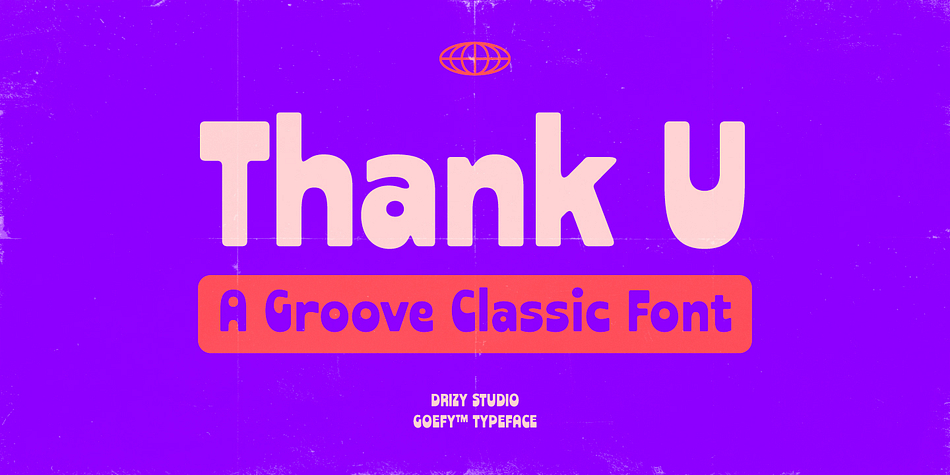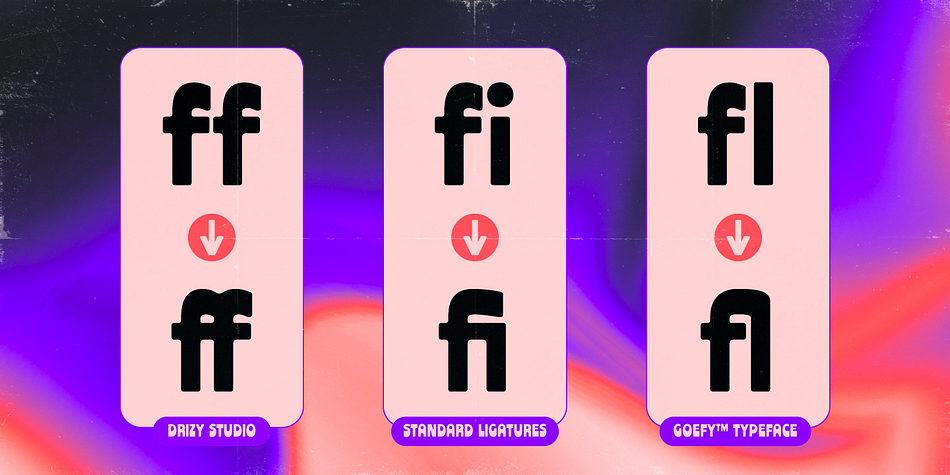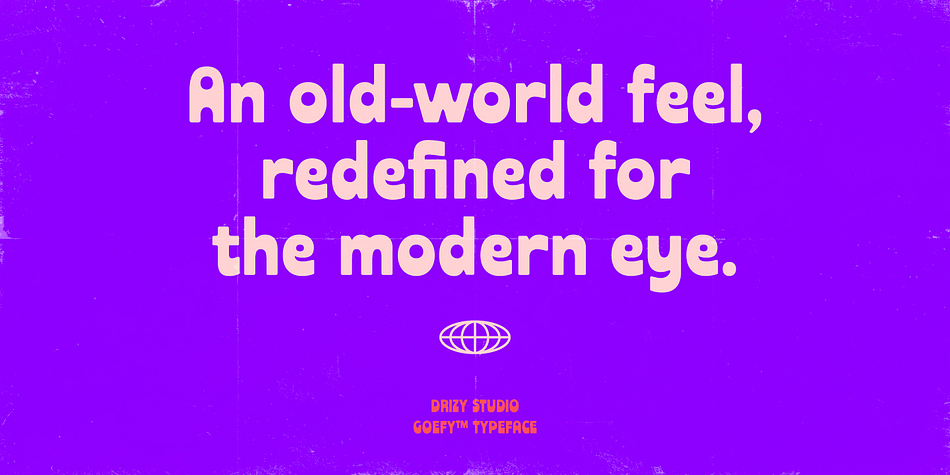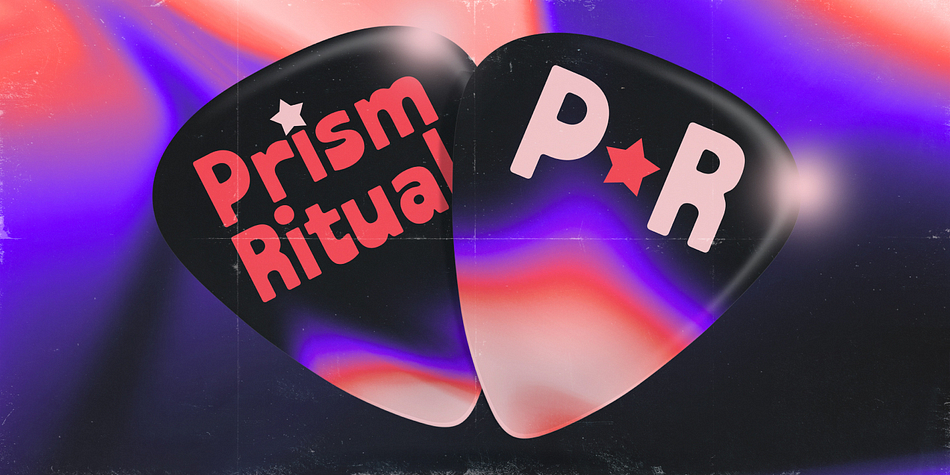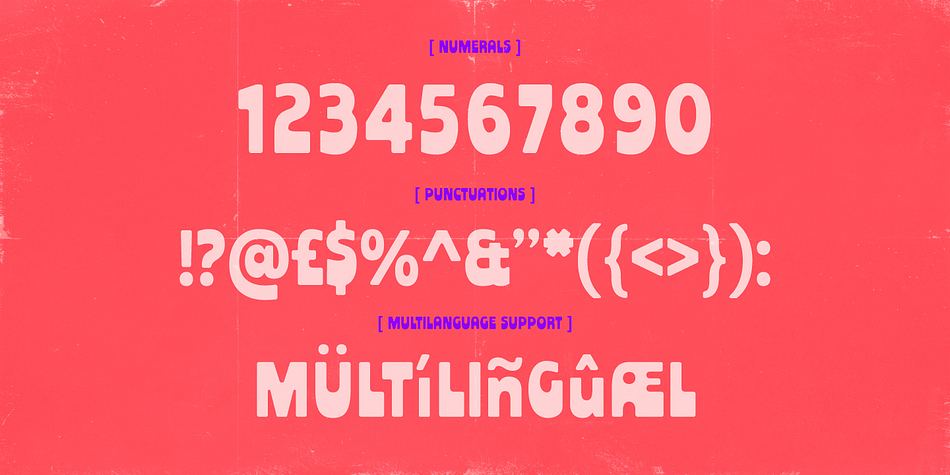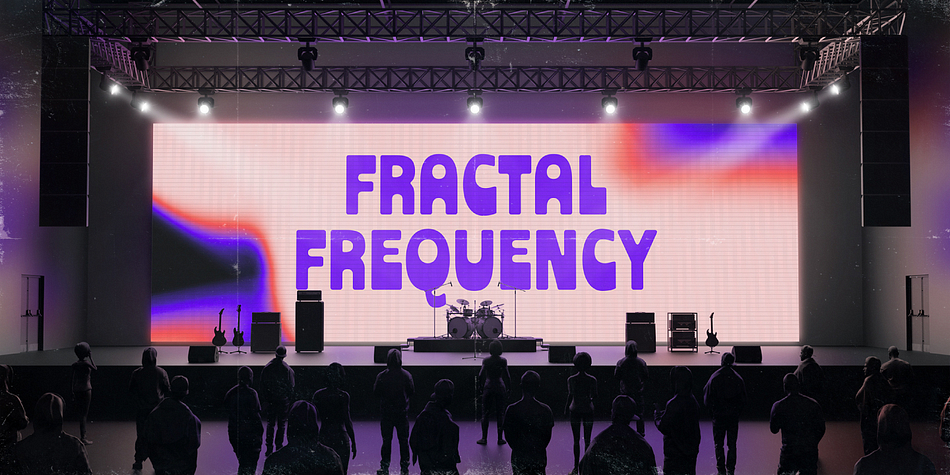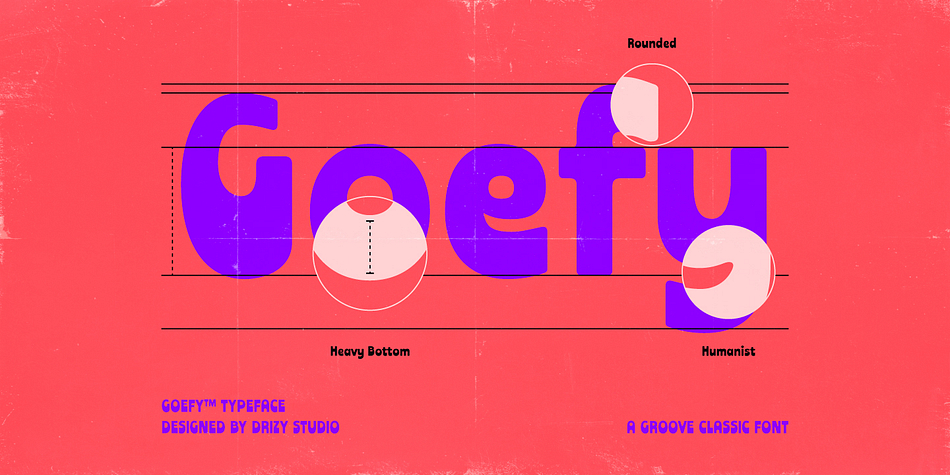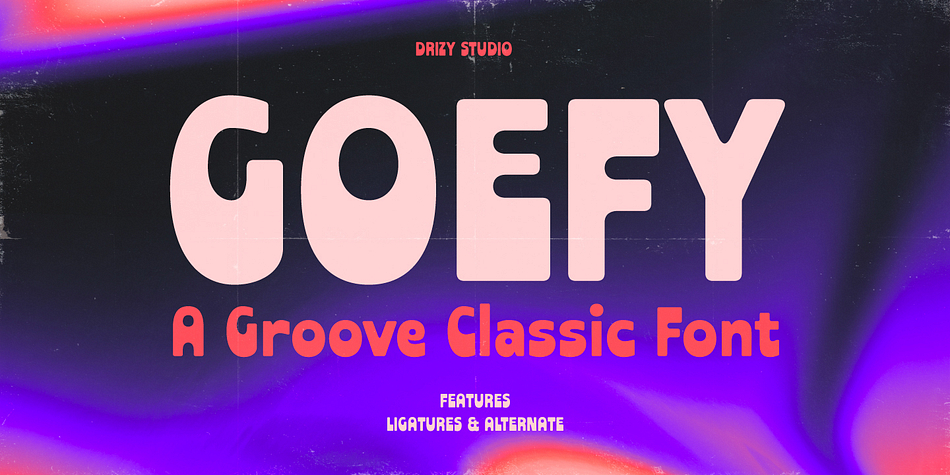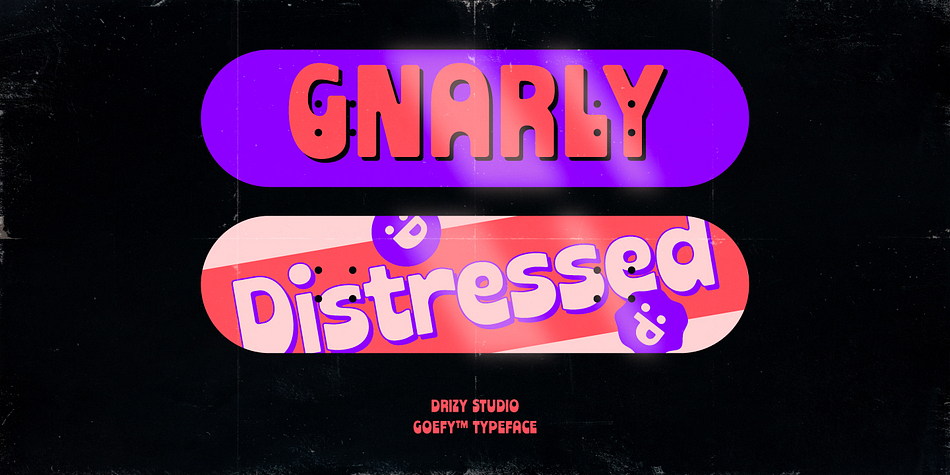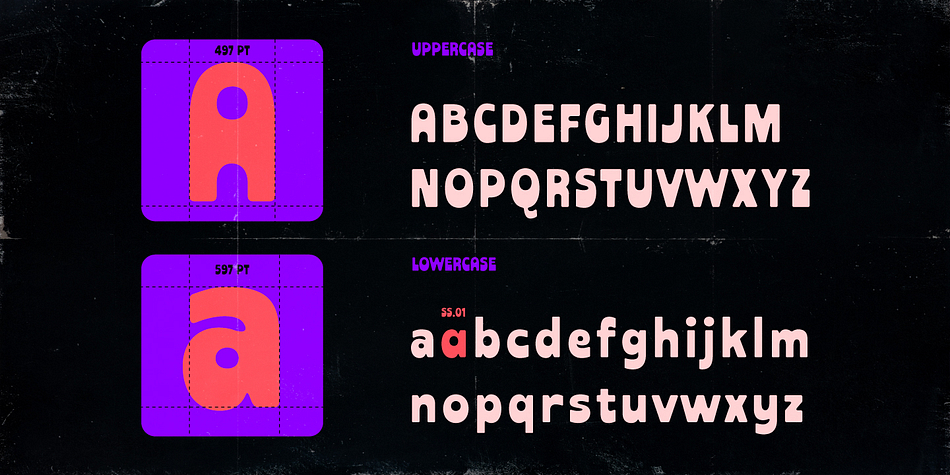
Goefy
Designed by Panca Ahmadi Hasan, Goefy is a sans serif font family published by Drizy Font.
Goefy – Groove Classic Font
Goefy – Groove Classic Font is a Vintage Heavy Bottom font that radiates retro energy with a bold and confident twist. Inspired by classic signage, soul album covers, and mid-century advertising, this typeface brings a nostalgic rhythm to modern design. With thick, grounded strokes and playful curves, Goefy Groove Classic strikes the perfect balance between funky charm and sturdy elegance.